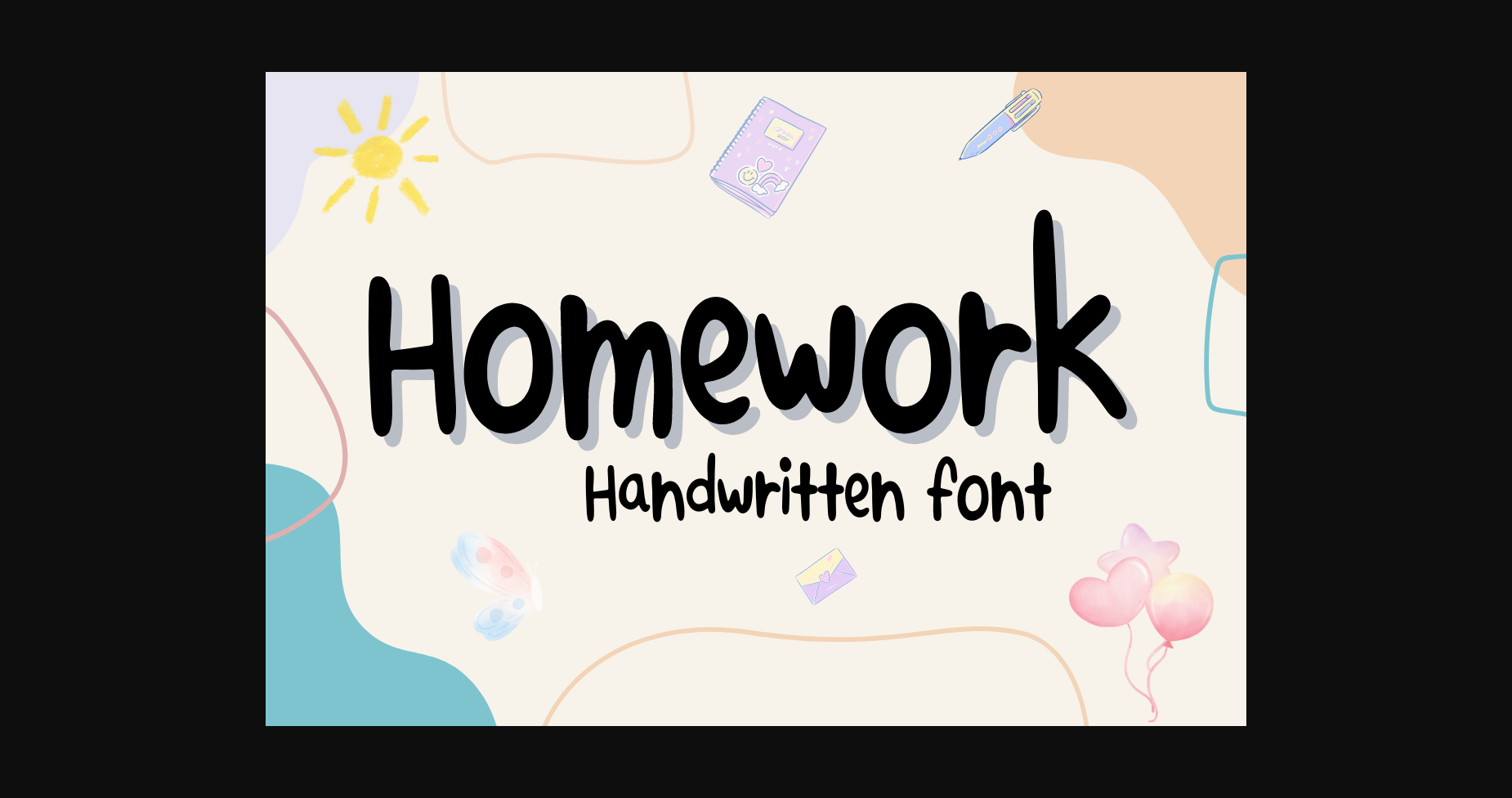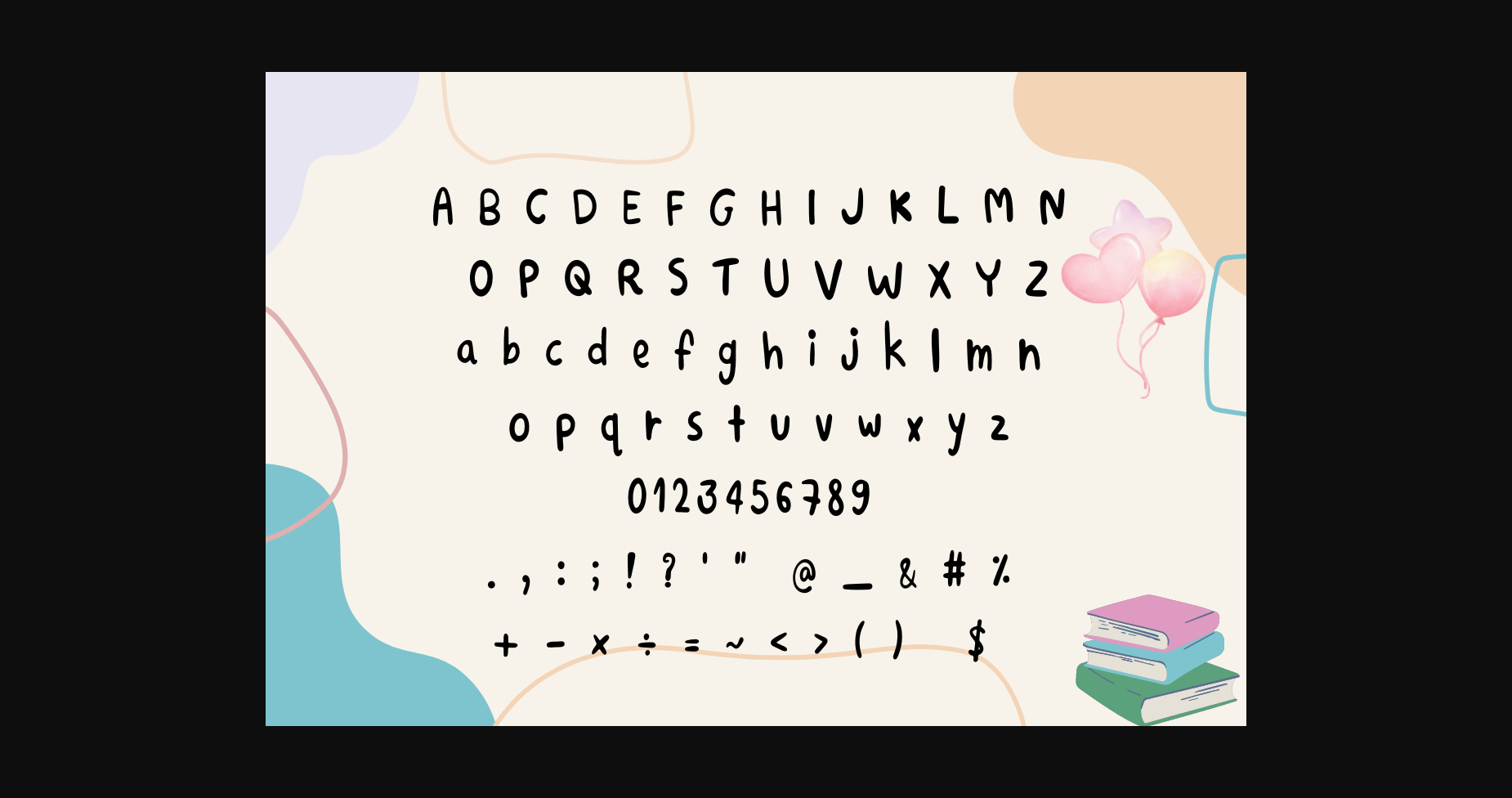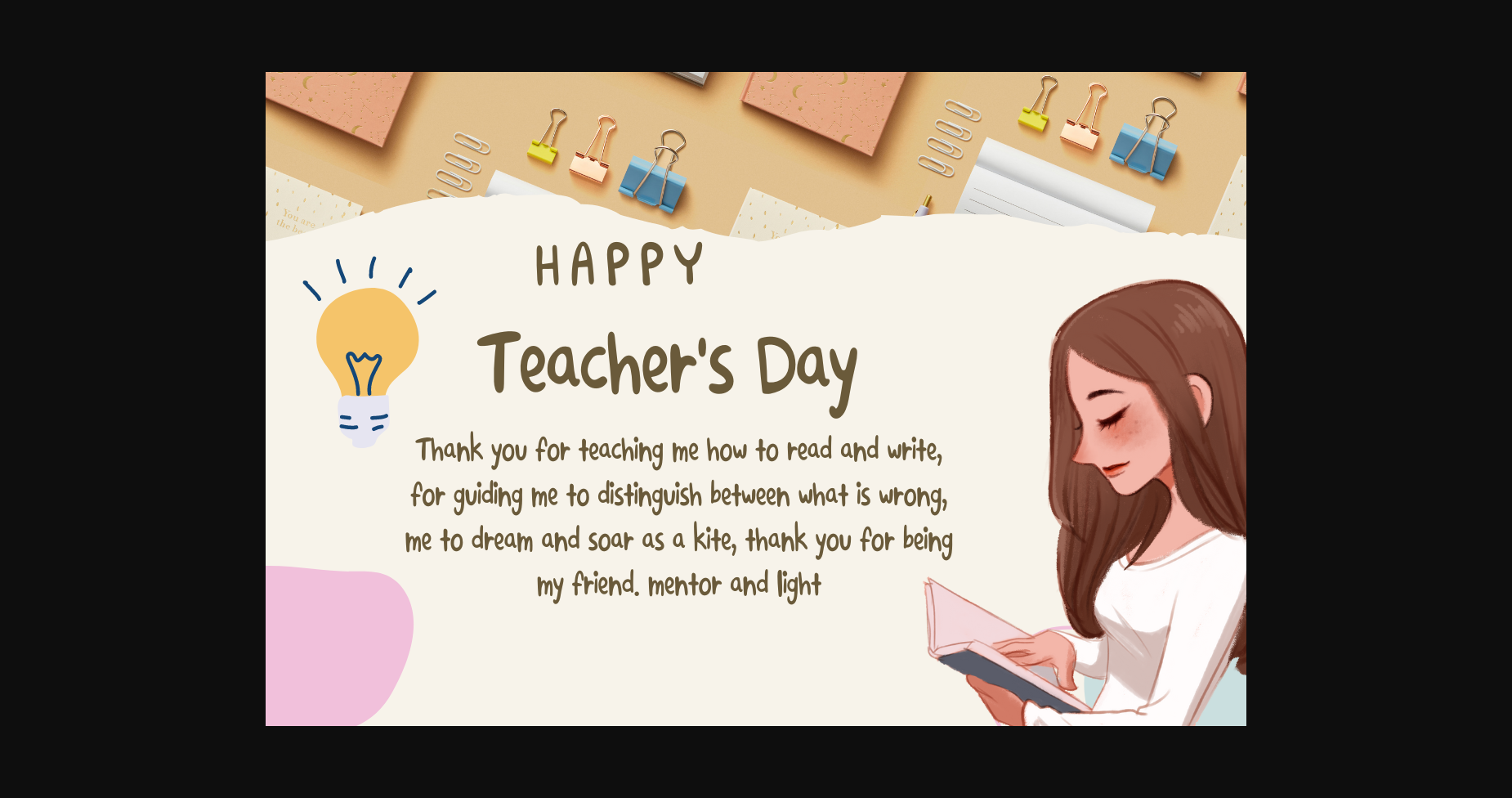
About Homework Font
Homework is a handwritten font. You can use it for taking notes, writing a diary, or making greeting cards, banners, content, mugs, cards, shirts, stationery, social media posts, and more!